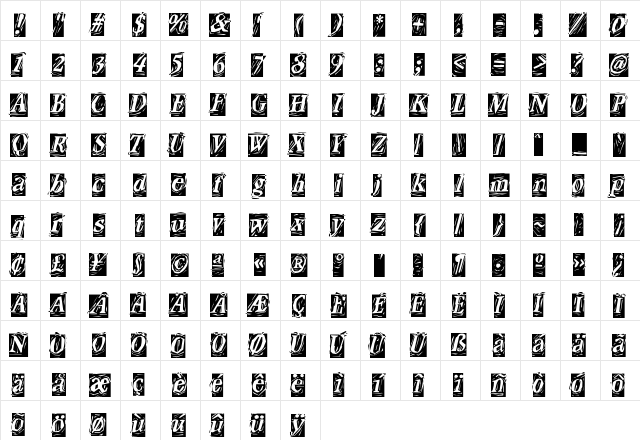
Craft BlackReversed
Design Context for Craft Typeface
Craft is a composed and adaptable typeface that performs quietly and consistently across a wide range of design contexts.